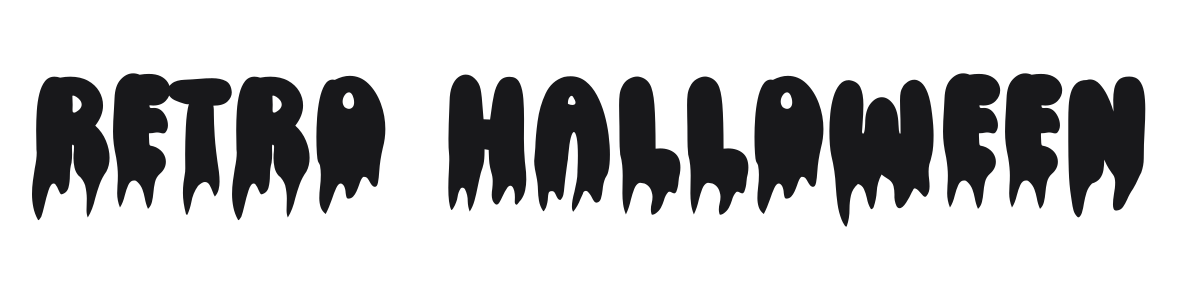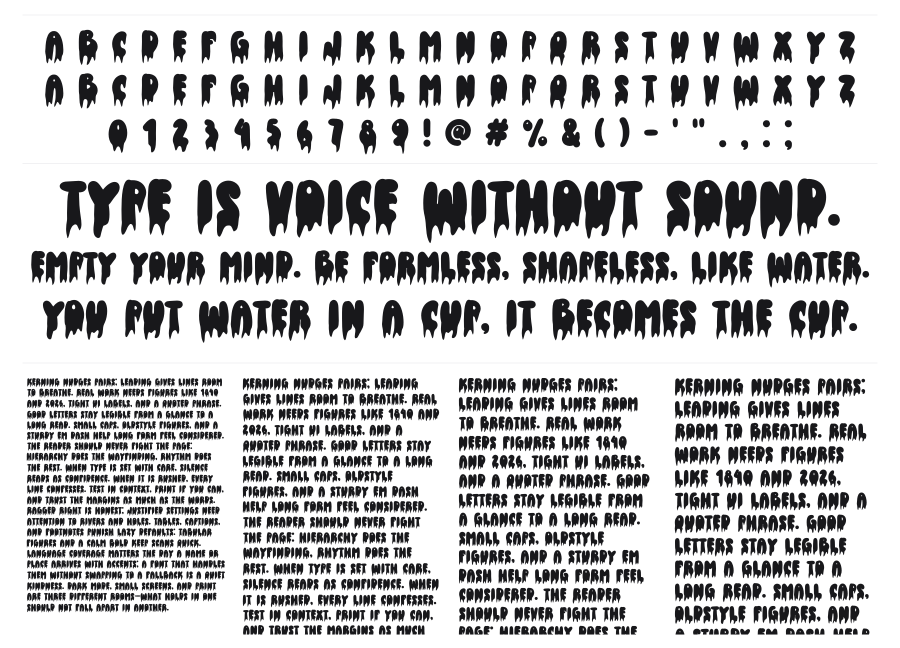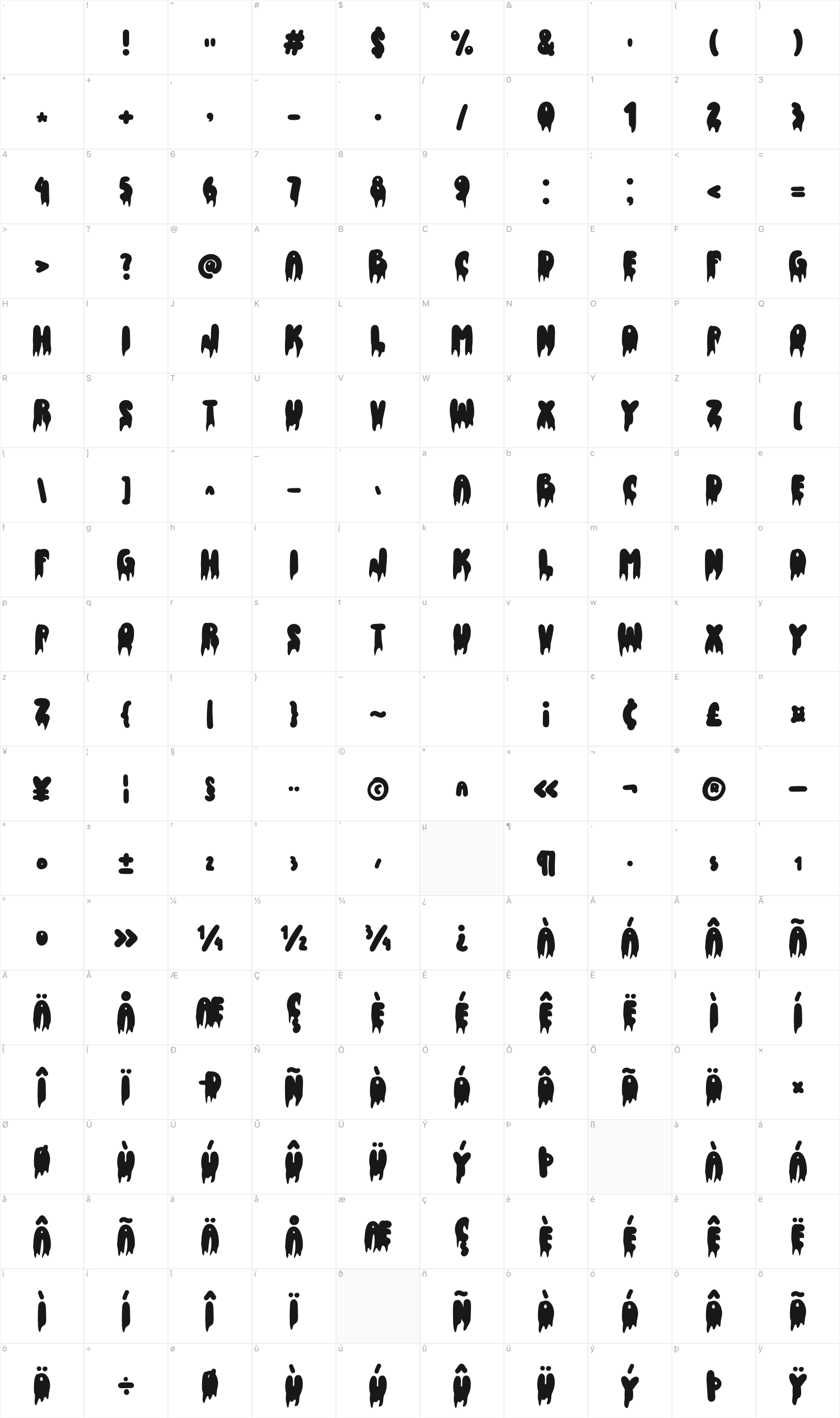
Retro Halloween
Retro Halloween is a heavy display font built around bold, rounded characters with jagged dripping spikes along the bottom edges. The combination of bubbly weight and horror-drip detailing gives it a retro haunted-house quality that feels festive rather than frightening. Strong at large sizes for seasonal posters, event branding, and packaging.